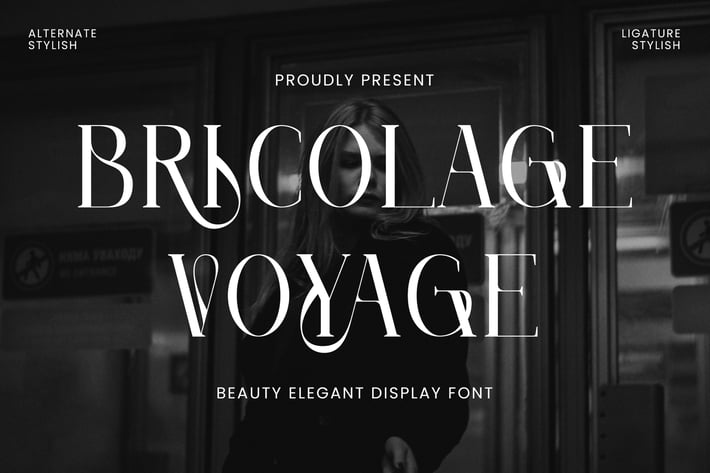
Bricolage Voyage - Elegant Display Font
Bricolage Voyage - Elegant Display Font contains a lowercase, uppercase, symbol, and also supports multi-language. There’s a lot of ligature in this font. Bricolage Voyage - Elegant Display Font also comes with ligatures, stylistic alternates and many more.
this font suitable for fashion, branding, catalog and other design that you want.